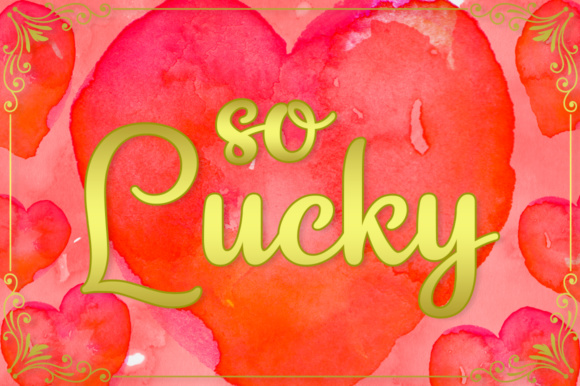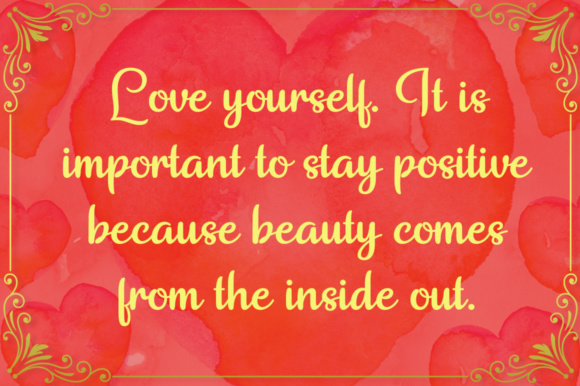
So Lucky Font
About So Lucky Font
So Lucky is a stunning, well weighted script font. This beautiful font will add tons of style and loveliness to your designs, and works best as a display or title font.